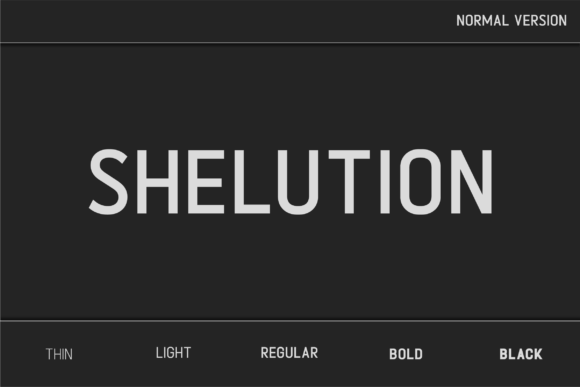
Prepare to be enthralled by Shelution Font, an extraordinary sans serif masterpiece that will captivate your every design. Born from the creative forge of Nan Design, this font family embodies elegance and versatility, ensuring that your creations stand out from the mundane.
Step into a world of limitless possibilities as Shelution Font flawlessly adorns your art books, imbuing them with an aura of sophistication and timeless appeal. Its meticulously crafted characters dance across the page, inviting readers to immerse themselves in your storytelling.
Whether you seek to craft eye-catching logos, alluring film posters, or captivating magazines, Shelution Font will effortlessly elevate your designs. Its inherent balance of sophistication and simplicity allows your creations to exude an understated charm that speaks volumes.
Dive into the world of Shelution Font and unlock a treasure trove of creative potential. Let its exquisite lines guide you towards design excellence, leaving an unforgettable mark on every project you undertake.